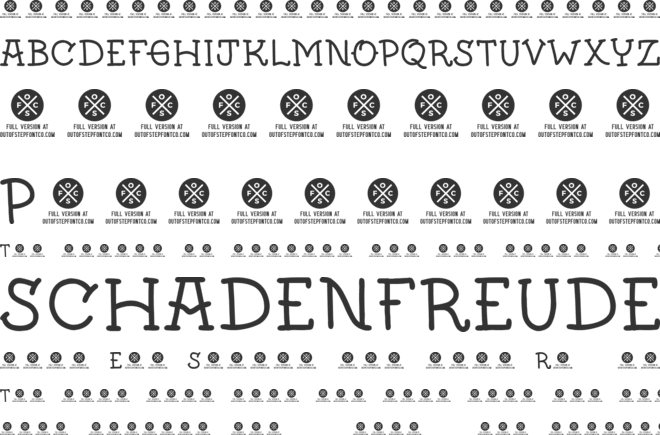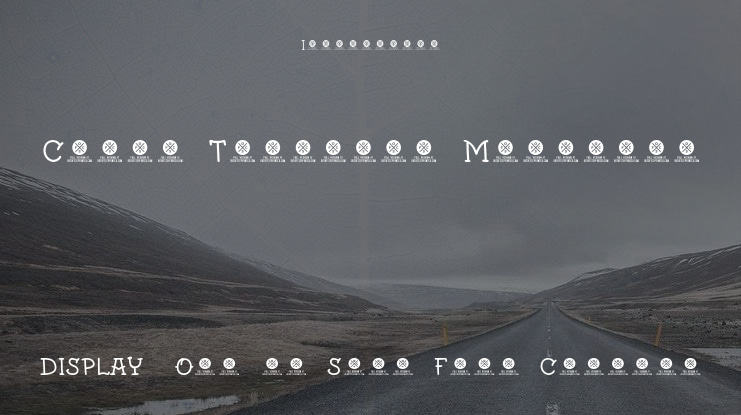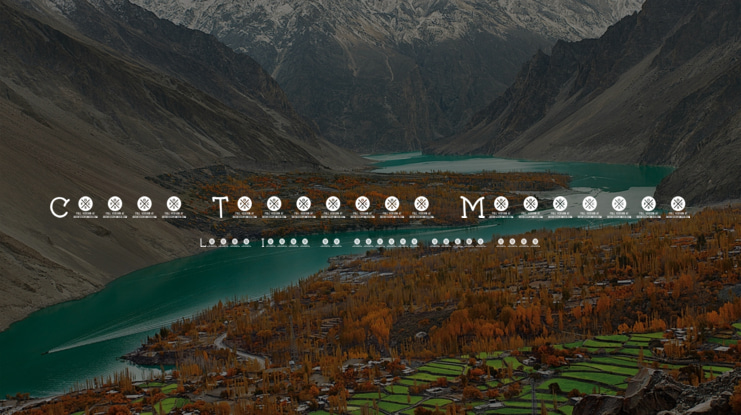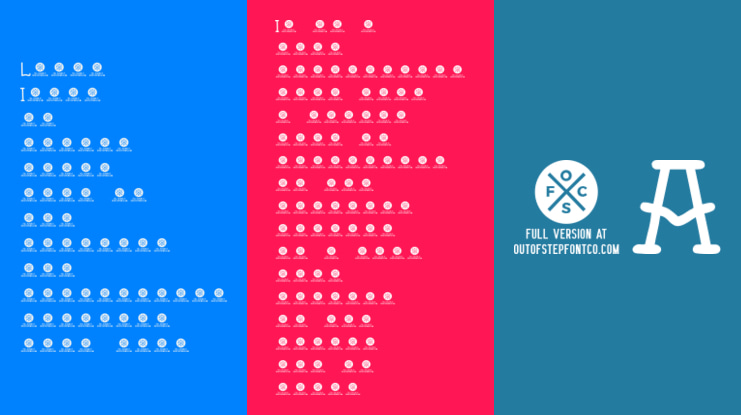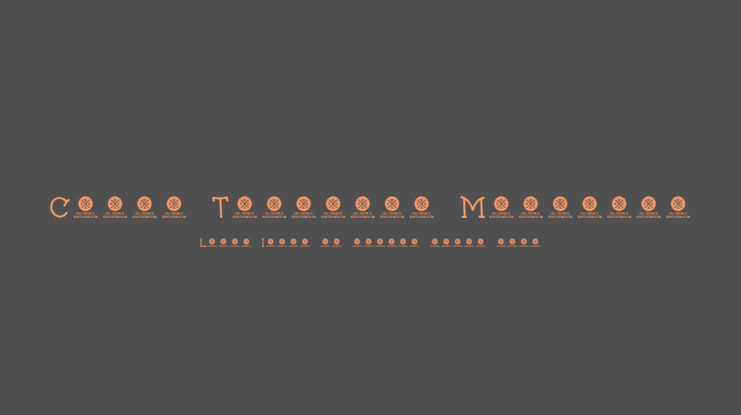
Crazy Traveler Monoline Font
Crazy Traveler is the new kid on the block - a simple hand-drawn nautical tattoo script in a very traditional style. It has been lovingly crafted as a synergistic merger of old school and new school sensibilities.
Features:
- 628 glyphs
- multi-language support
Includes:
- Crazy Traveler Monoline Regular
- Crazy Traveler Monoline Bold